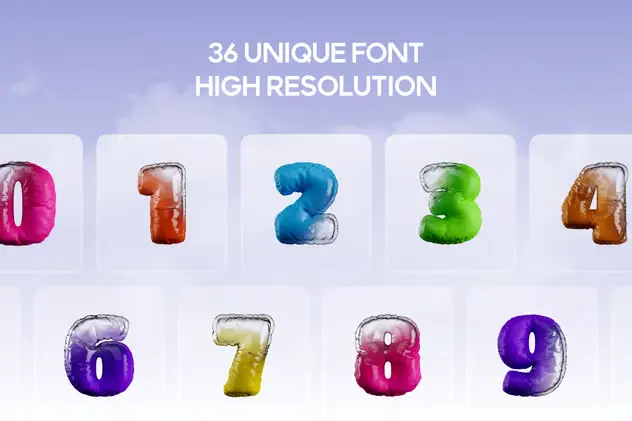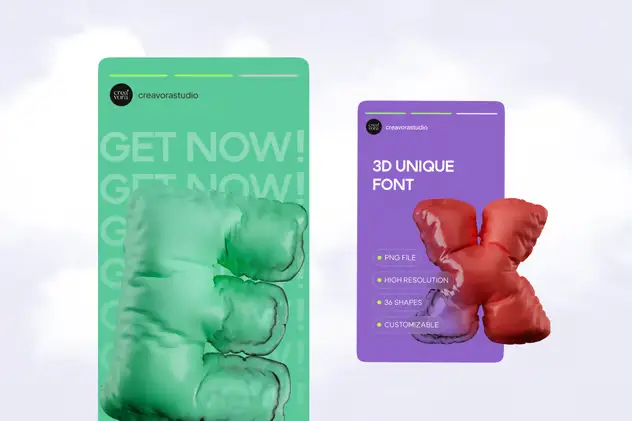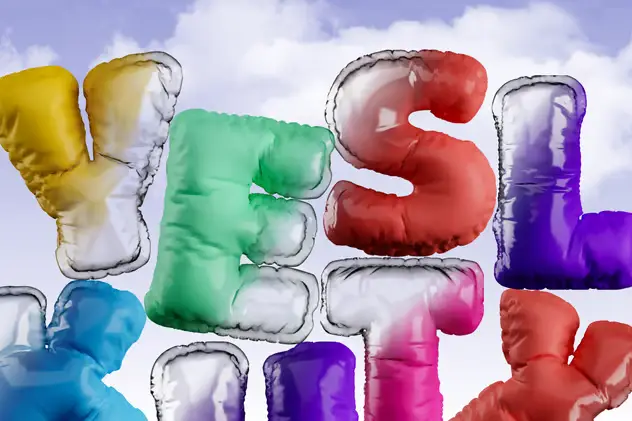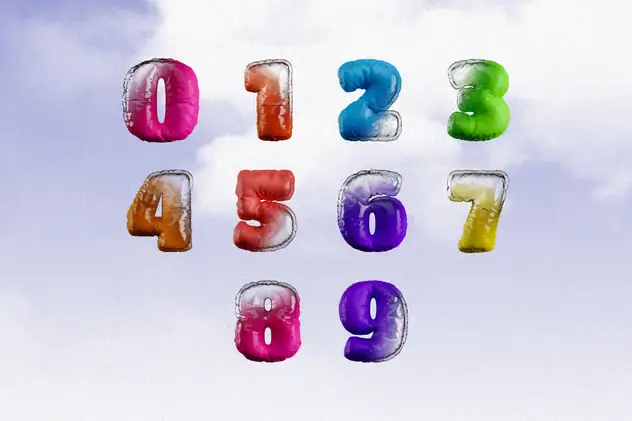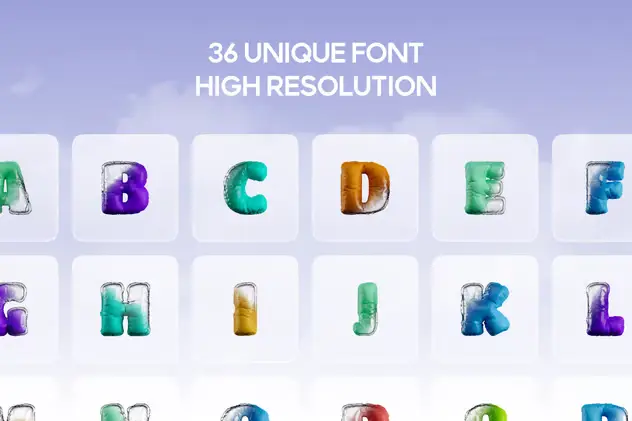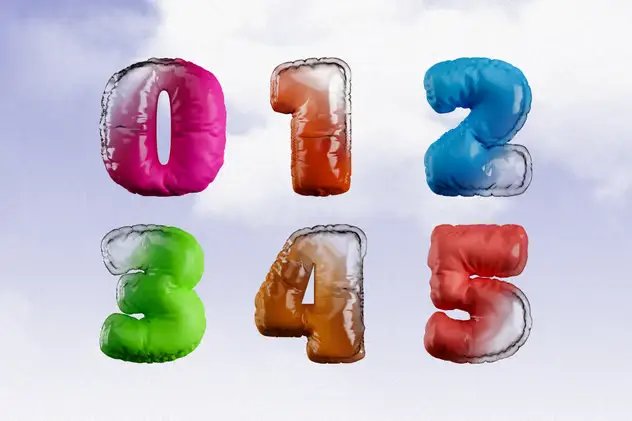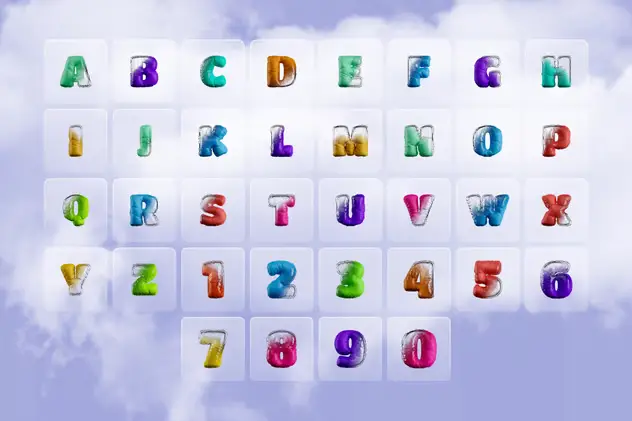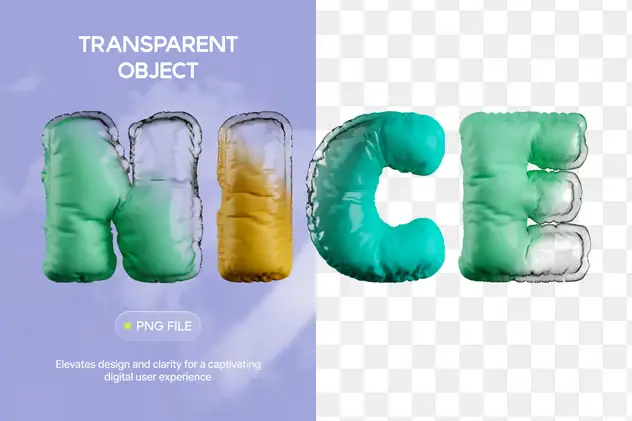
Ignite your creativity with the 3D Unique Font! This vibrant collection of custom 3D letters brings your designs to life, making every project a visual delight. Perfect for celebrations, marketing materials, and social media, this font set ensures your work stands out with its playful balloon-inspired style.
The 3D Unique Font is a stunning digital asset designed for graphic designers, marketers, and anyone looking to add a touch of fun to their projects. With 36 unique elements, this font set allows you to create eye-catching designs effortlessly.
- ✅ 36 Unique Elements → Provides a wide variety of options for your design needs.
- ✅ Easy to Use → Perfect for both beginners and professionals, allowing you to create stunning designs quickly.
- ✅ Versatile Applications → Ideal for branding, social media, posters, and more, making it a valuable addition to your toolkit.
Why Choose This Asset
This 3D Unique Font stands out due to its playful design and versatility. Unlike standard fonts, these balloon-inspired letters add a festive touch to any project. Whether you’re designing for a birthday party, an anniversary, or a marketing campaign, this font set guarantees a professional look that captures attention.